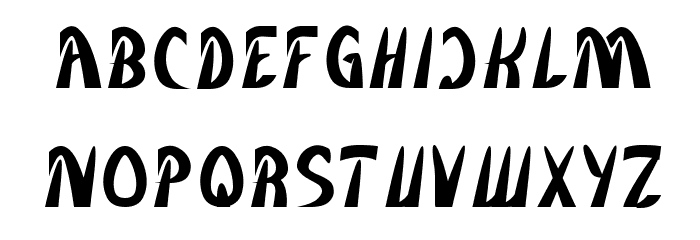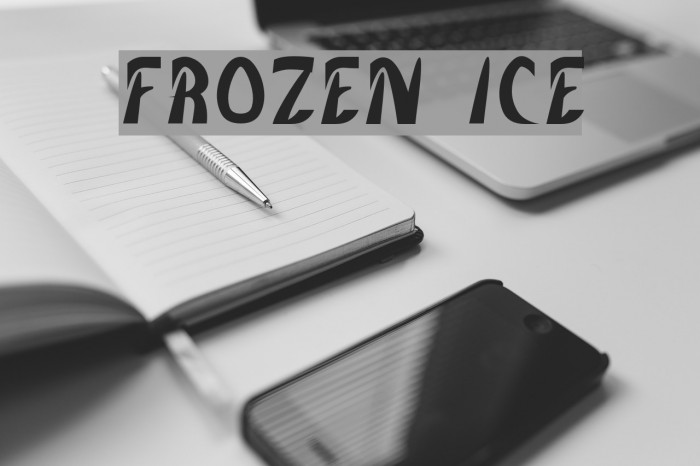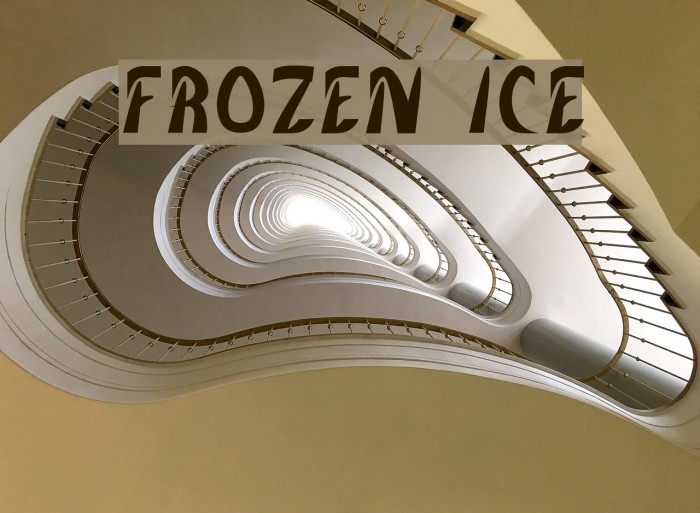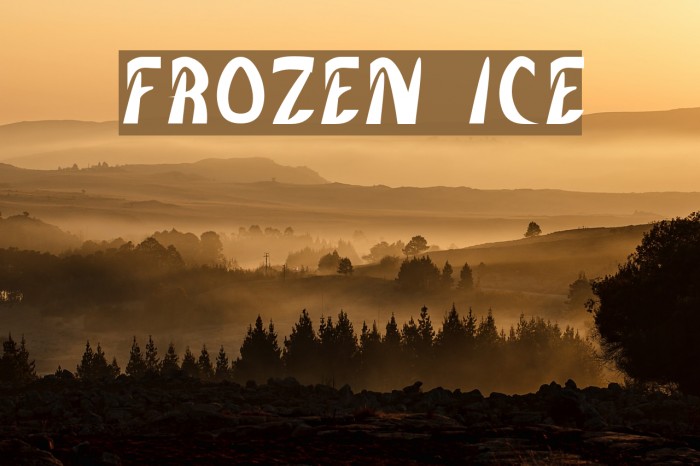
frozen ice Font
This font exhibits a playful and dynamic style, characterized by its bold, angular shapes and a sense of movement. The letters have a unique, icy appearance, with sharp edges and a slightly slanted orientation, giving them a frozen, wintry feel. The uppercase letters are particularly striking, with exaggerated curves and points that suggest icicles or frost. The overall design is both decorative and impactful, making it suitable for attention-grabbing headlines or thematic designs. The font's distinct personality makes it ideal for projects that require a touch of whimsy or a winter-themed aesthetic.
A bold, icy font with angular shapes and a dynamic, frozen appearance.
- Proposed Projects: Ideal for winter-themed designs, holiday cards, event posters, or any project needing a playful, icy touch.
- Use Case: Headlines, Logos, Thematic Designs